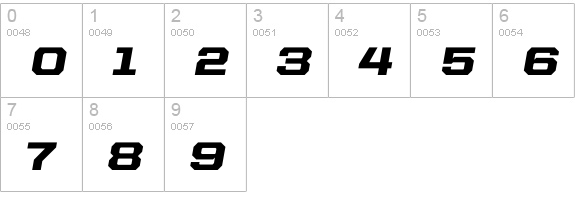
United Italic SemiExt Black Font Details
United Italic SemiExt Black is a maximum-weight, dramatic, italic variant in the United typeface family \xE2\x80\x94 well suited to maximum-impact headlines, posters, and packaging.
United Italic SemiExt Black font is a bold and striking typeface that is perfect for making a strong statement in your design projects. This font showcases a unique combination of elegance and power, making it ideal for headlines, titles, and logos that demand attention. With its semi-extended letterforms and thick strokes, United Italic SemiExt Black font exudes confidence and authority. Its distinct italic slant adds a touch of sophistication, making it versatile for a wide range of design applications. One of the most impressive aspects of United Italic SemiExt Black font is that it is available for free download at FontsMarket.com. This means that you can easily access this captivating font without any cost or restrictions. Whether you are a professional designer or a creative hobbyist, having access to high-quality fonts like United Italic SemiExt Black font can greatly enhance your design projects. The characters in United Italic SemiExt Black font are meticulously designed with attention to detail, ensuring that each letter maintains its boldness and legibility even at large sizes. This makes it an excellent choice for posters, signage, and any other design where impact and readability are essential. The versatility of United Italic SemiExt Black font extends to both print and digital mediums. Whether you are working on a print project such as brochures, flyers, or packaging, or creating digital designs for websites, social media graphics, or presentations, this font will deliver a commanding presence. In conclusion, United Italic SemiExt Black font is a visually captivating typeface that combines elegance and power. Its bold and striking appearance, coupled with its unique italic slant, makes it a versatile choice for a wide range of design applications. And the best part is, it is freely available for download at FontsMarket.com, allowing you to effortlessly incorporate this impactful font into your design projects. Don't miss out on the opportunity to elevate your designs with this exceptional font.